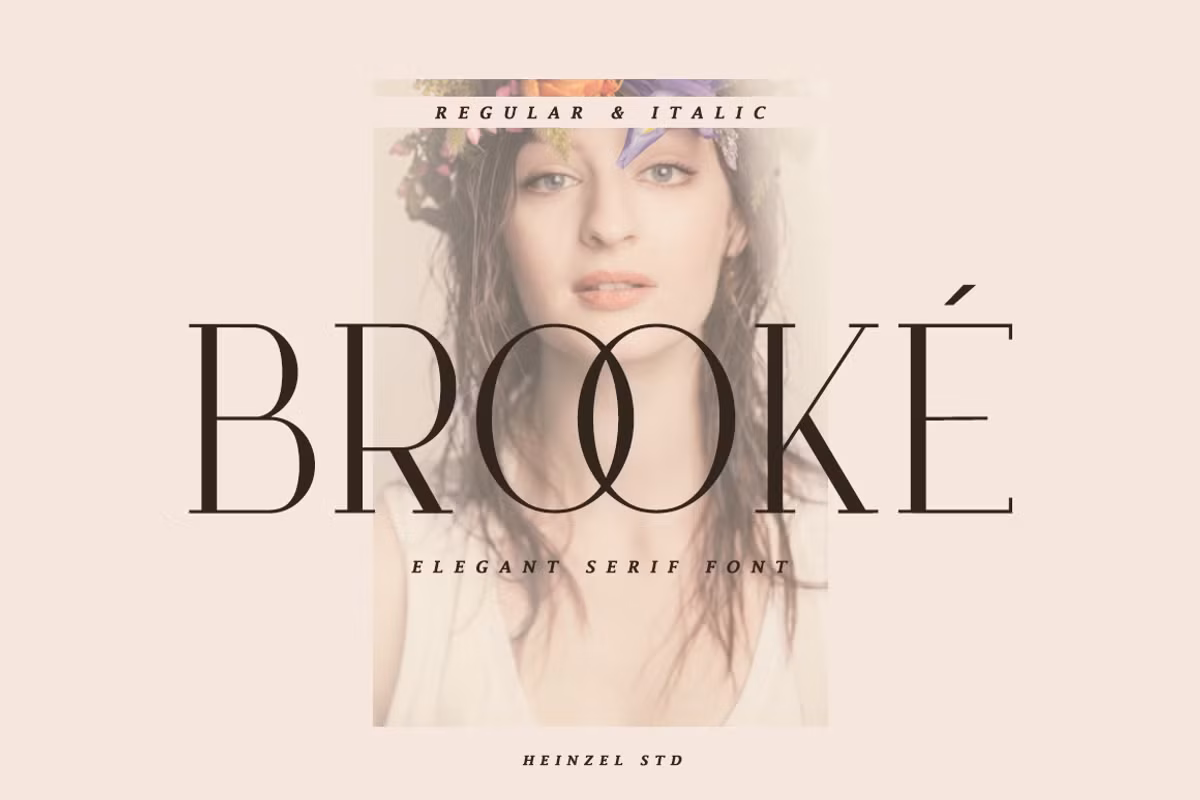
Brooké – Modern and Elegant Serif Font Free Download is a refined typeface that beautifully blends contemporary style with timeless sophistication. Featuring high-contrast strokes, graceful curves, and luxurious detailing, this font is perfect for fashion branding, editorial layouts, logo design, wedding stationery, and upscale packaging.
With a clean and confident presence, Brooké – Modern and Elegant Serif Font Free Download adds a premium, polished feel to your typography. It’s ideal for projects where elegance and clarity need to work hand-in-hand, giving your visuals a chic and professional edge.